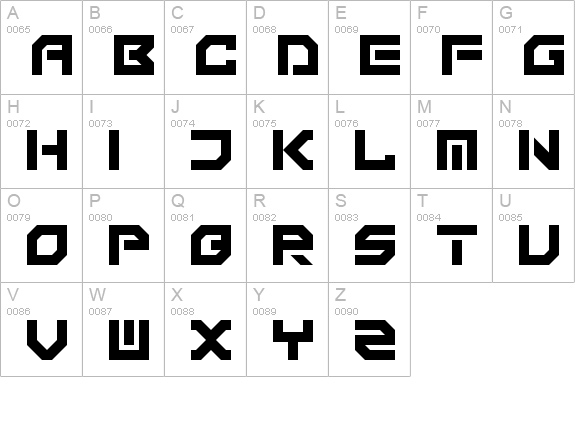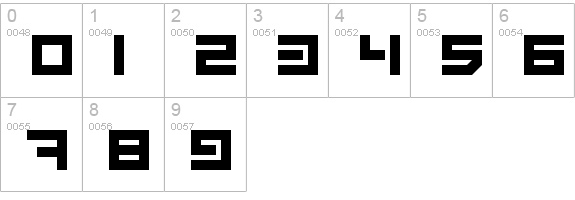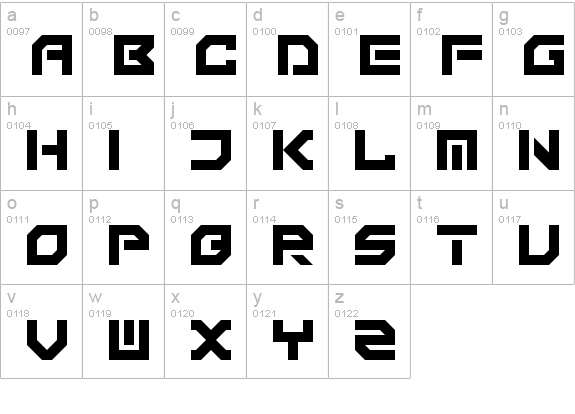
Technomicon font is a sleek and modern typeface that exudes a futuristic vibe, making it perfect for technology-related projects and designs. With its sharp edges and geometric lines, this font is designed to convey a sense of innovation and cutting-edge style. The Technomicon font is versatile and can be used for various purposes, such as logos, headlines, and branding materials.